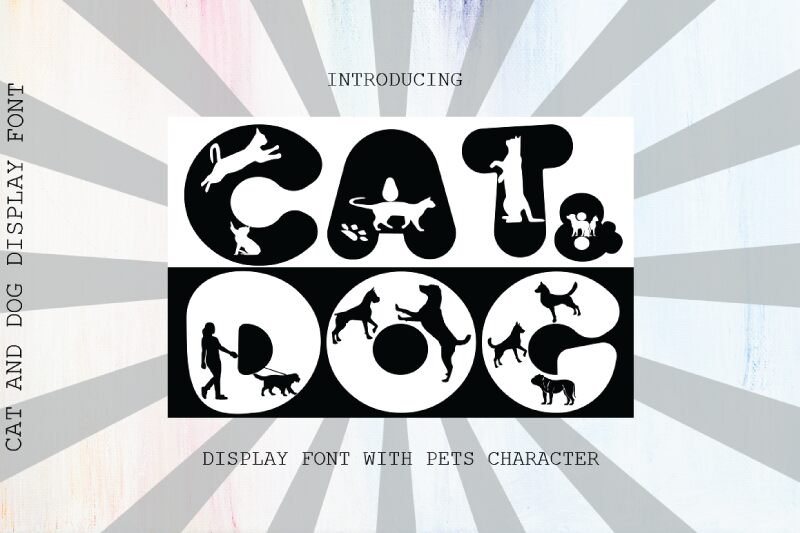
Cat and Dog, a bold and whimsical display font crafted by Miftah Arzaq, captivates with its playful, organic letterforms. Reminiscent of hand-drawn sketches, this typeface exudes a sense of playfulness and spontaneity, making it an alluring choice for projects seeking a distinctive, eye-catching aesthetic. The dynamic interplay of thick and thin strokes, coupled with the unexpected curves and angles, lend this font a sense of movement and energy, inviting the viewer to engage with the design on a visceral level.
This versatile font shines in a variety of applications, from eye-catching headlines and impactful logotypes to charming book covers and engaging social media graphics. Its bold presence and distinctive character make it well-suited for branding, packaging, and advertising campaigns that aim to capture attention and convey a memorable, individualistic tone. Whether used as a primary typeface or in strategic typographic pairings, Cat and Dog by Miftah Arzaq is a captivating choice for designers seeking to infuse their projects with a touch of whimsy and personality.